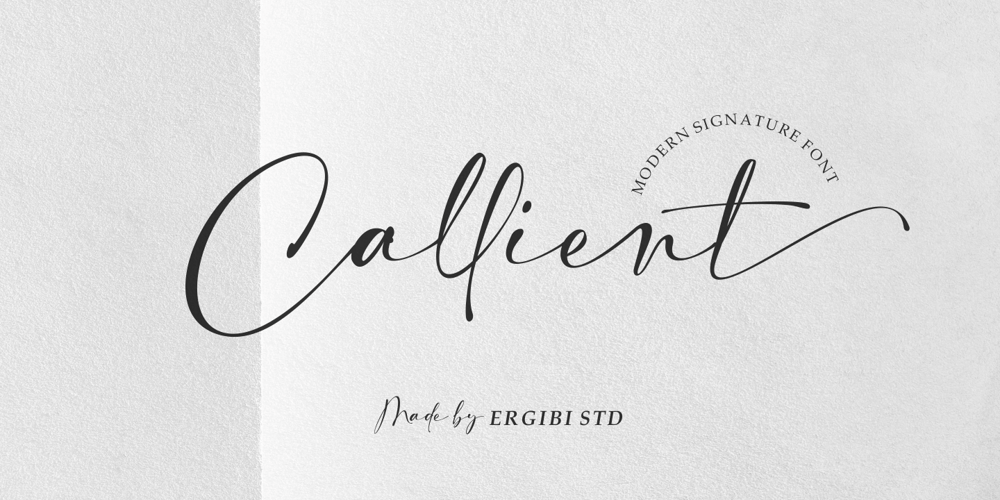
Callient Font Family was designed by Riyadh Rahman and published by Ergibi Studio. Callient contains 1 styles and family package options. Callient is a Modern signature font presentation from Ergibi Studio. This font includes uppercase, lowercase letters, numbers, punctuation, symbols, binders and multilingual support. Callient is perfect for branding, photography, invitations, quotes, watermarks, advertisements, product designs, social media posts, stationery, labels, and more!I hope you enjoy this font. If you have any questions please don’t hesitate to drop me a message :)Thank You, Ergibi Studio